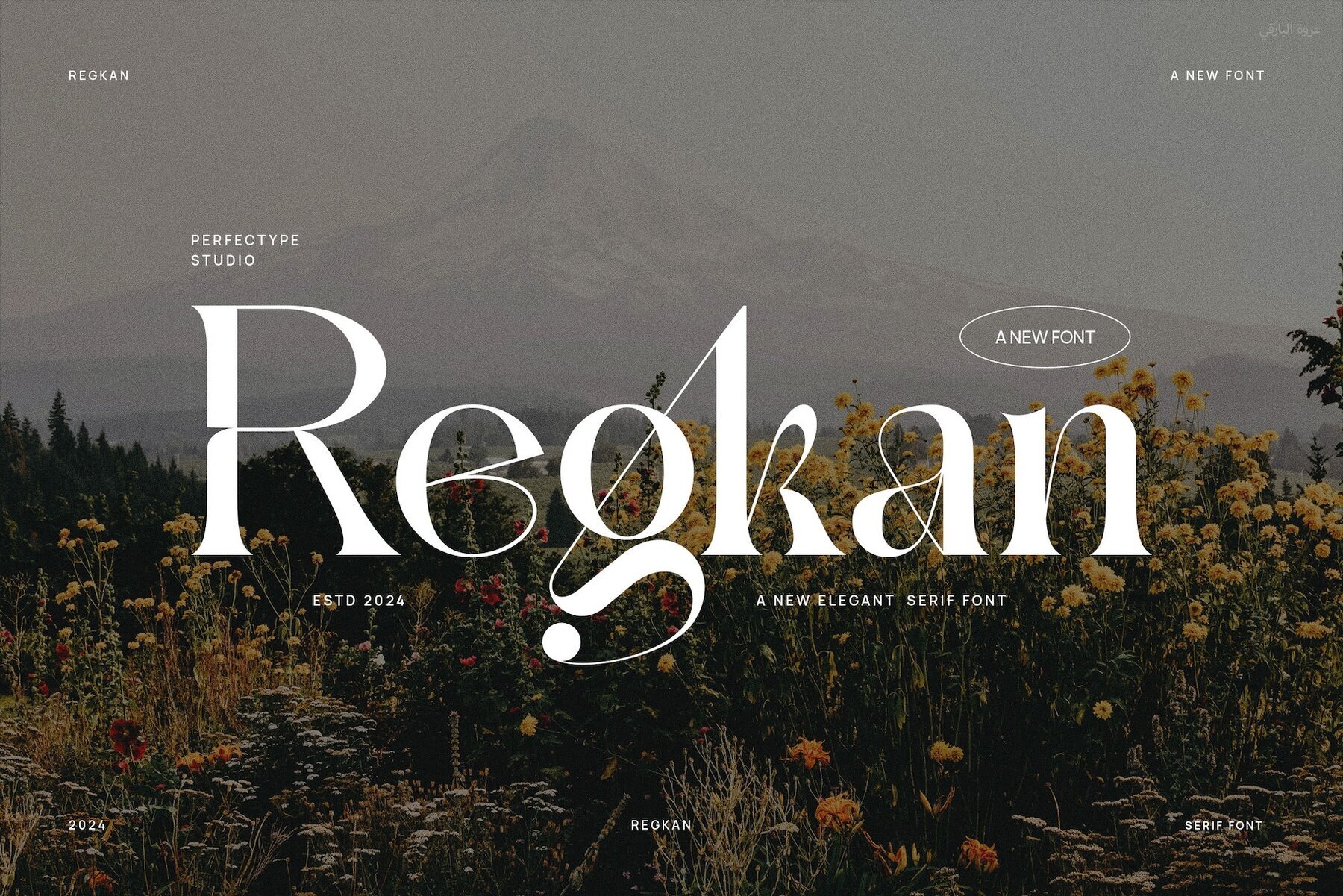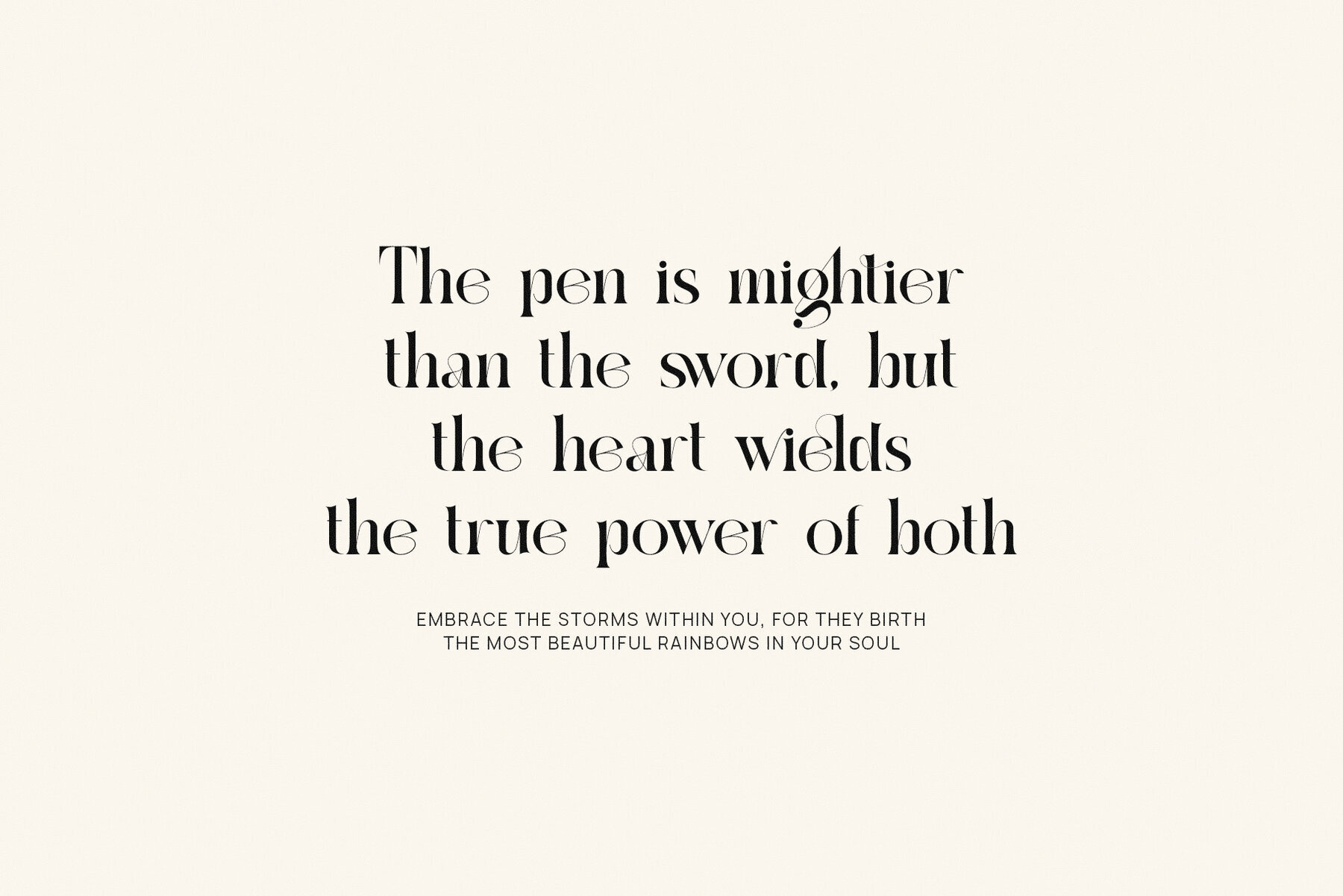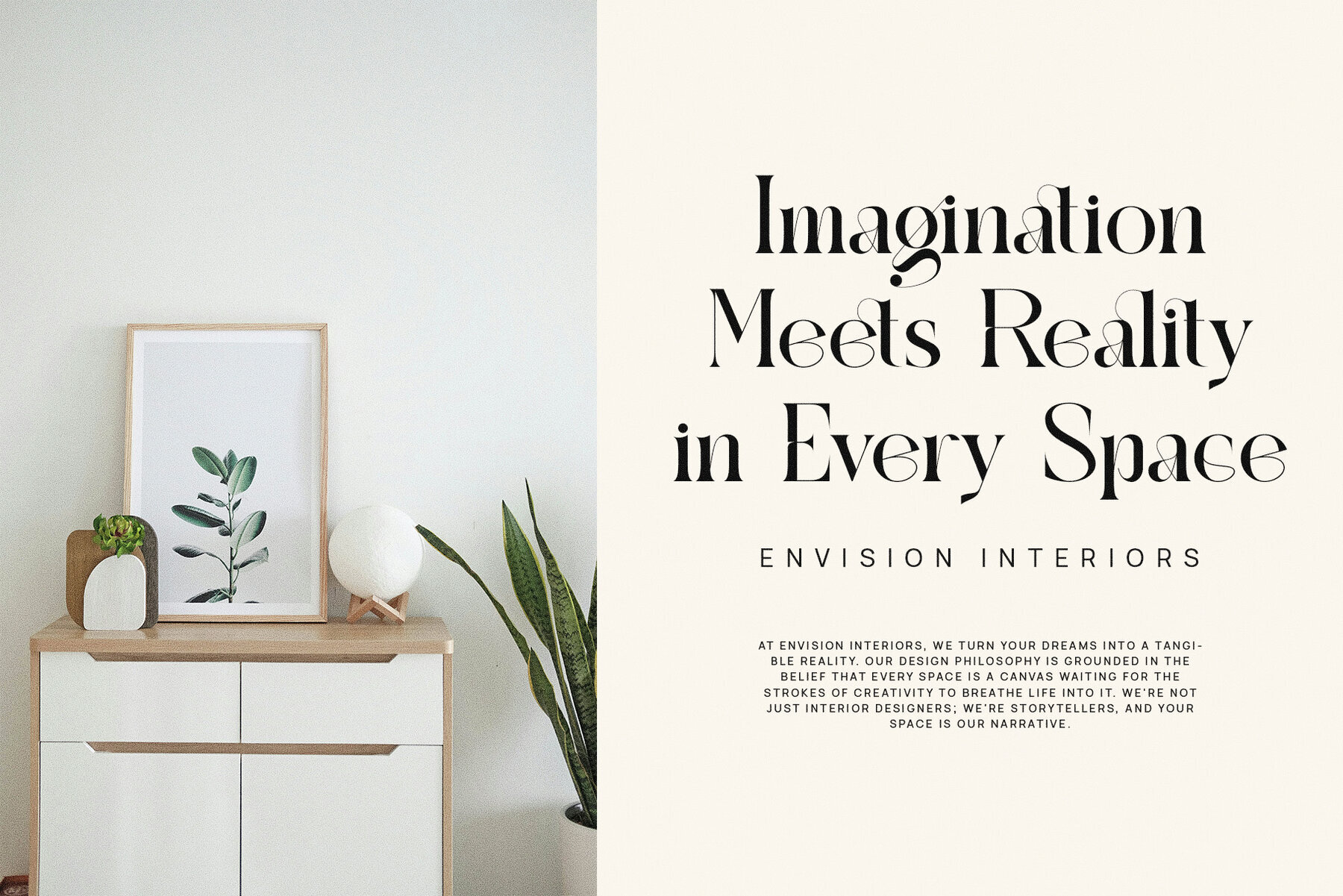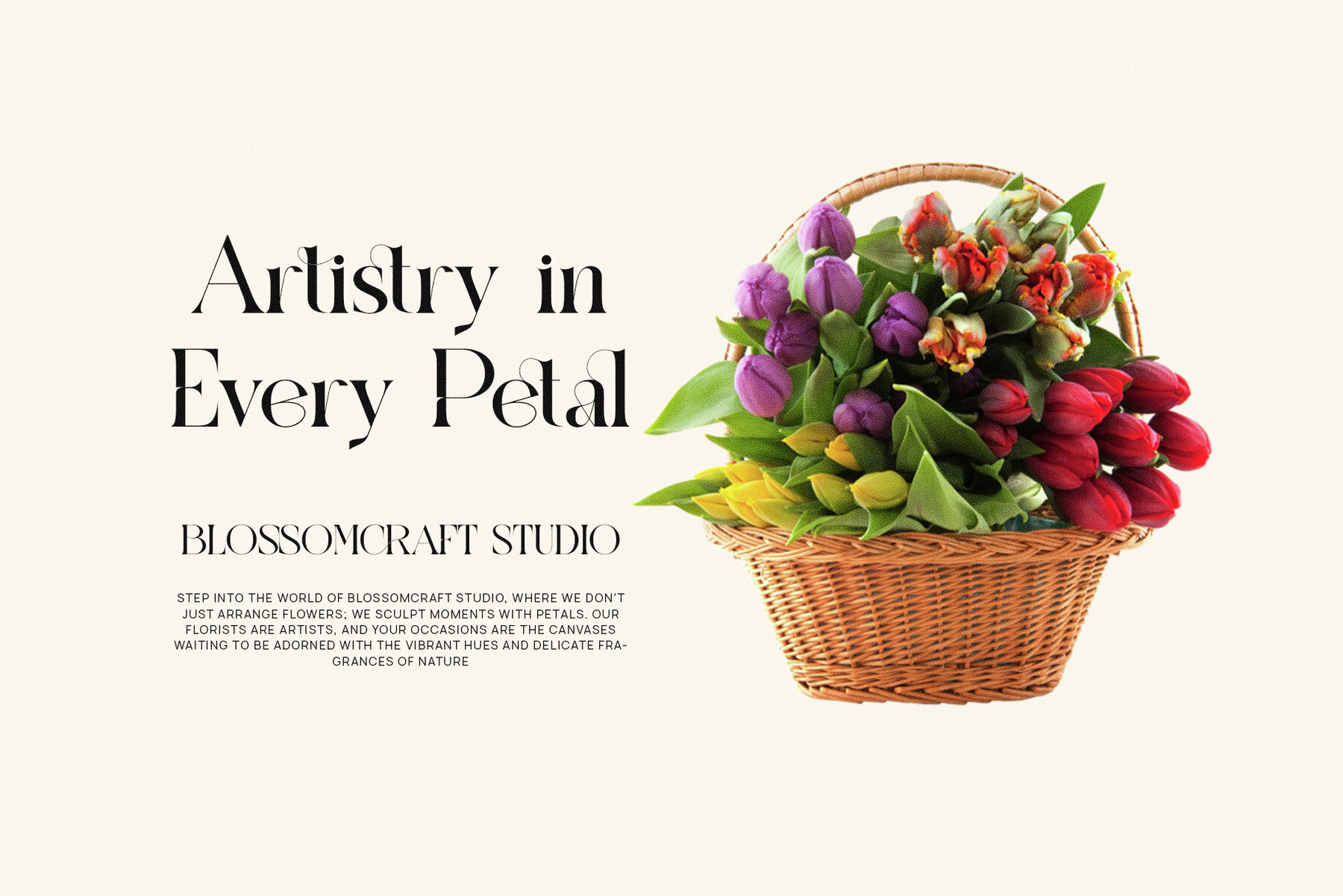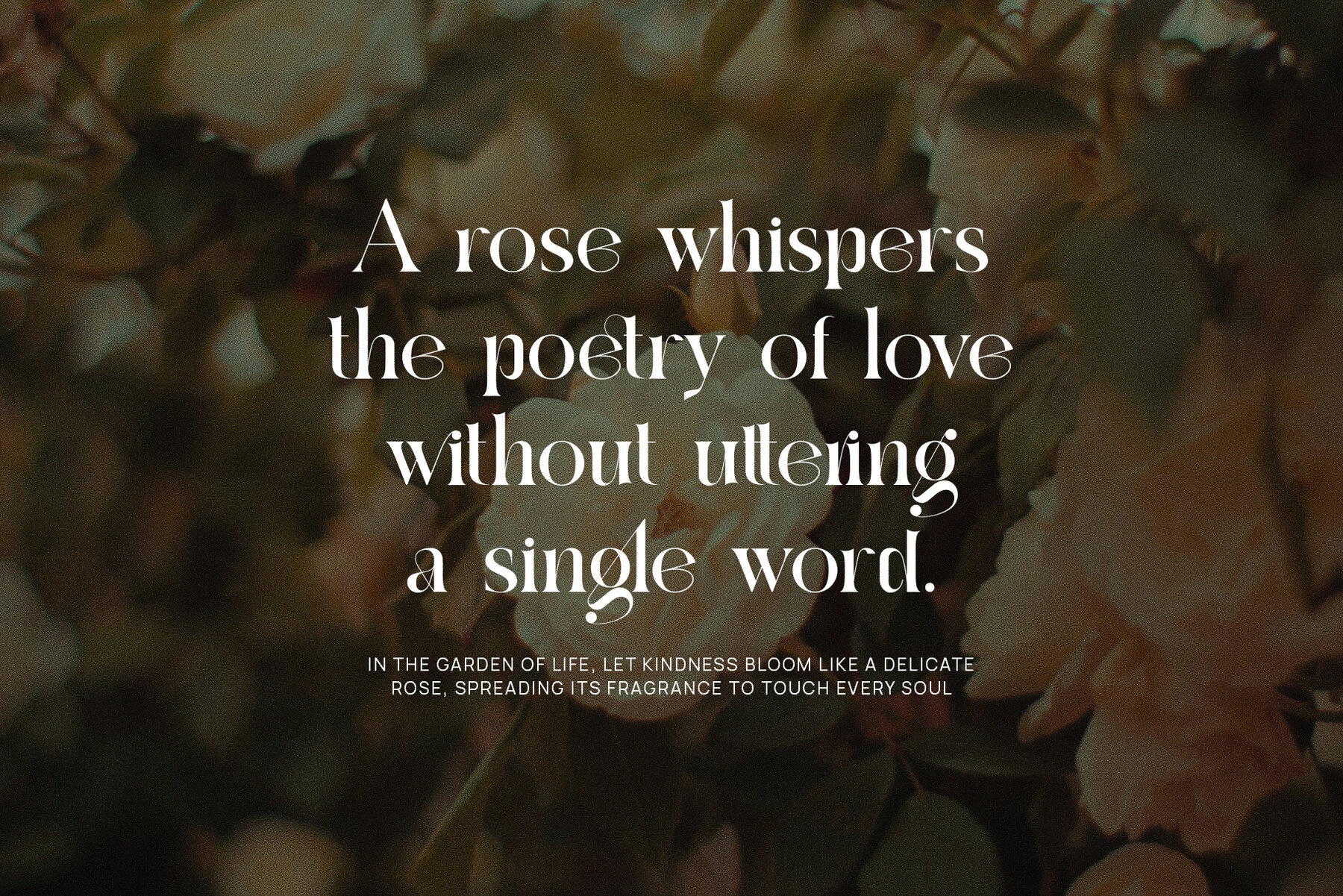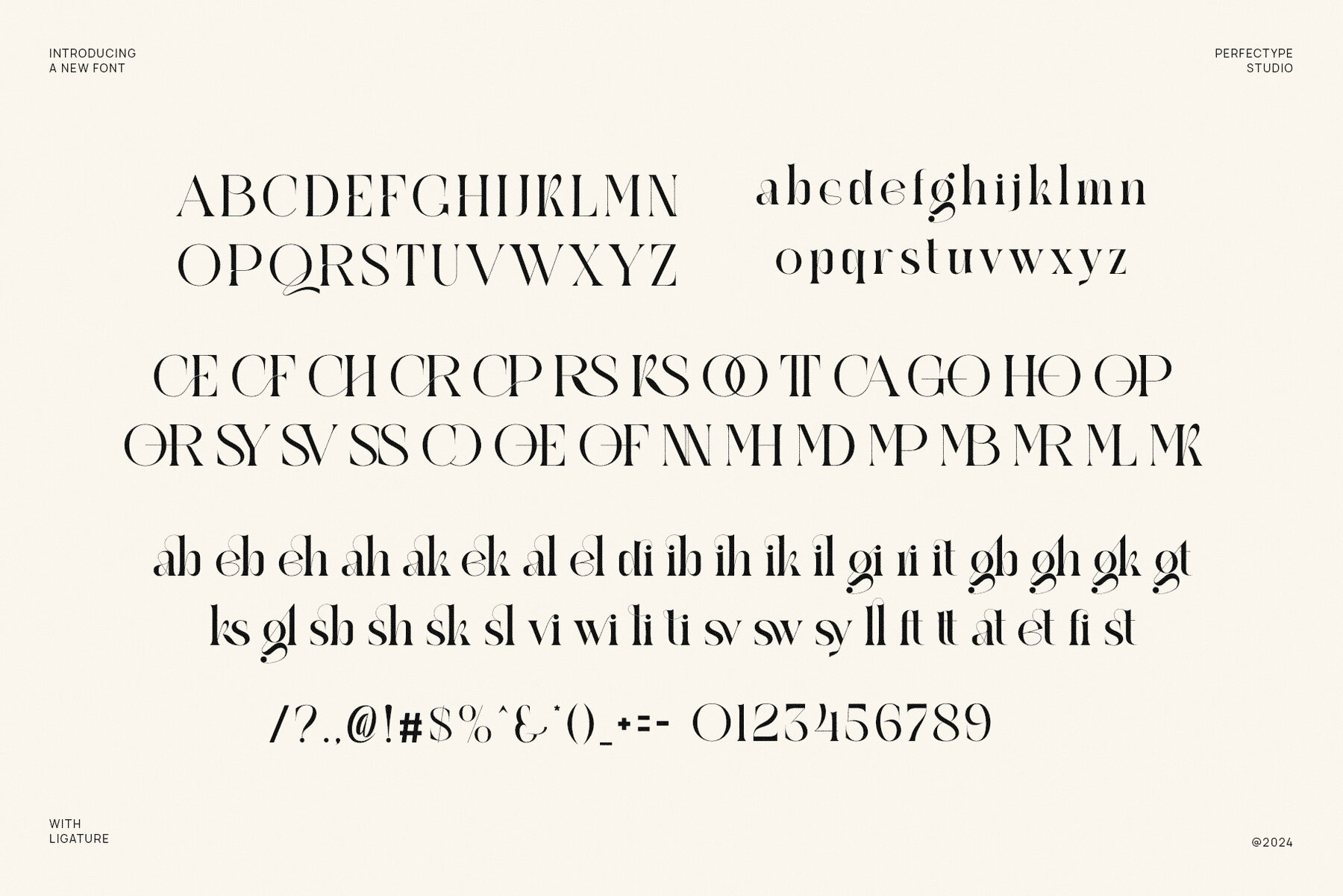
Regkan
Regkan Elegant Serif Font is a refined typeface that combines elegance with versatility. Featuring sophisticated serifs and distinctive letterforms, Regkan infuses luxury into any project. Its meticulously designed ligatures and alternate characters offer flexibility, allowing designers to create seamless and personalized typography that elevates the aesthetic quality of their work.
Ideal for premium branding, Regkan excels in crafting standout logos, upscale product packaging, and sophisticated visual identities. Its elegant structure ensures excellent performance in both large-scale headlines and smaller body text, making it a perfect choice for websites, magazine layouts, and advertisements. Whether designing a boutique logo, eye-catching food packaging, or a luxury promotional campaign, Regkan provides a polished and professional look.
With a timeless yet modern appeal, Regkan suits diverse industries ranging from fashion and lifestyle to food and luxury brands. Its unique design guarantees distinction across both print and digital media, offering versatility for various creative projects. Featuring elegant curves, unique shapes, and customizable ligatures, Regkan is essential for designers aiming for high-end branding. It ensures a sophisticated touch, creating a memorable and lasting impression for logos, websites, and advertisements.